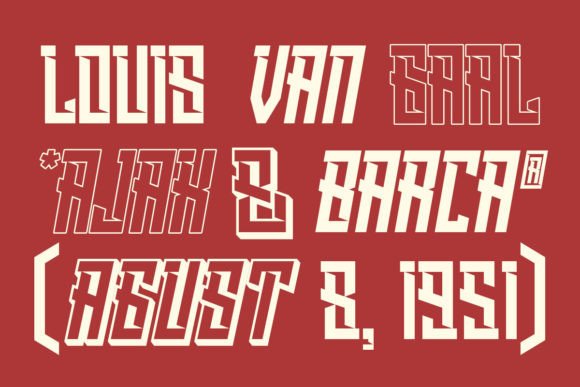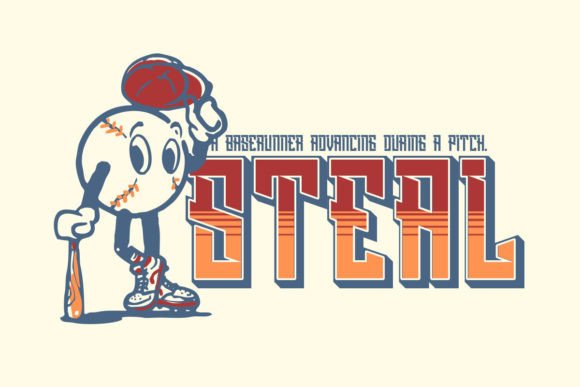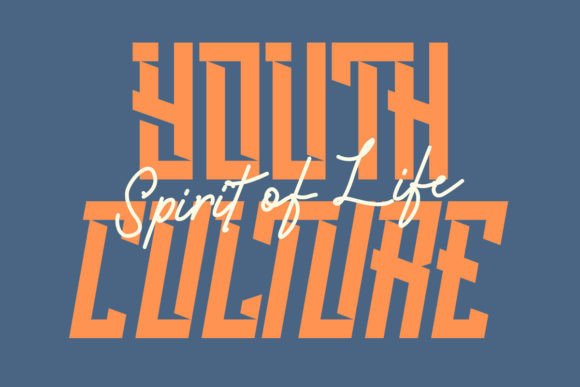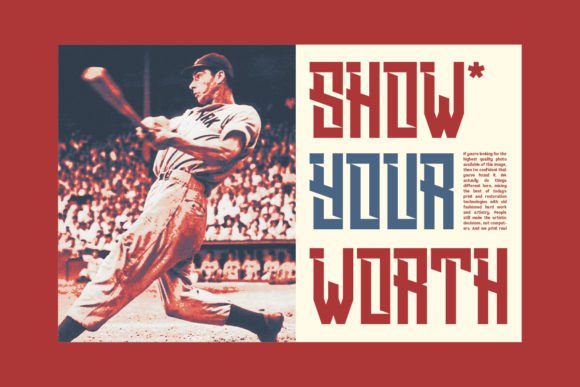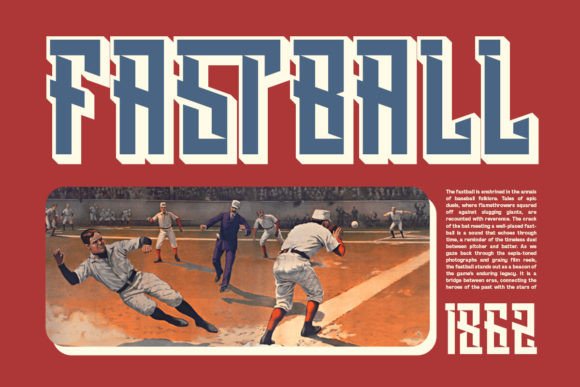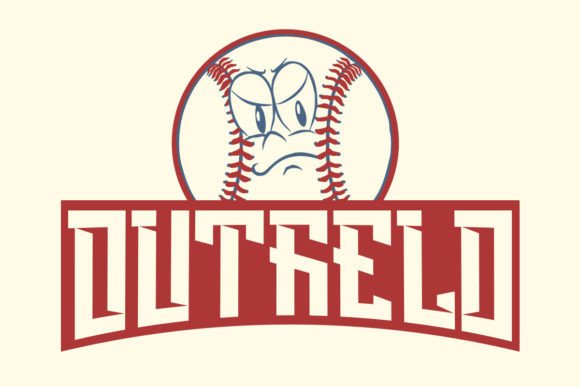
Introducing Blasher: The Ultimate Sporty Display Font for Energetic Designs
Are you looking for a font that can add a dynamic and athletic feel to your designs? Look no further than Blasher, a sporty display font that packs a punch with its condensed slab style. Crafted to invoke the spirit of sports, particularly baseball, Blasher is the perfect choice for designers and crafters who want to create energetic and captivating designs.
A Font that’s Full of Punch
Blasher is more than just a font – it’s an experience. With its strong presence and unique character, this font is designed to capture the essence of athleticism and competitive spirit. Whether you’re working on a sports-themed project or an energetic design, Blasher is the perfect choice to make your designs stand out from the crowd.
One of the best things about Blasher is its versatility. This font comes in 6 different styles: Regular, Italic, Outline, Italic Outline, Extrude, and Italic Extrude. This range of styles provides designers with the flexibility to use Blasher for a wide range of projects, from logos and branding to posters and more.
The Perfect Font for Sports-Themed Designs
Blasher is specifically designed to invoke the spirit of sports, particularly baseball. Its condensed slab style gives it a dynamic and athletic feel that’s perfect for sports-themed designs. Whether you’re creating a logo for a sports team or designing a poster for a marathon, Blasher is the perfect choice to capture the energy and excitement of sports.
Key Features of Blasher
- Condensed slab style: Blasher’s unique font style gives it a dynamic and athletic feel that’s perfect for sports-themed designs.
- 6 different styles: Regular, Italic, Outline, Italic Outline, Extrude, and Italic Extrude provide versatility for a wide range of projects.
- Strong presence: Blasher has a strong presence that makes it perfect for logos, branding, and posters.
- Unique character: Blasher’s unique character captures the essence of athleticism and competitive spirit.
Why Choose Blasher?
So why choose Blasher over other fonts? Here are just a few reasons:
- It’s sporty and energetic: Blasher is the perfect choice for designers who want to create energetic and captivating designs.
- It’s versatile: With 6 different styles, Blasher can be used for a wide range of projects.
- It’s unique: Blasher’s unique character and condensed slab style make it stand out from other fonts.
How to Use Blasher
Blasher is easy to use and can be incorporated into a wide range of designs. Here are a few ideas to get you started:
- Logos and branding: Use Blasher to create a logo or brand identity that’s sporty and energetic.
- Posters and flyers: Blasher is perfect for designing posters and flyers for sports events or energetic designs.
- Social media graphics: Use Blasher to create social media graphics that are dynamic and attention-grabbing.
In conclusion, Blasher is a sporty display font that’s perfect for designers and crafters who want to create energetic and captivating designs. With its condensed slab style, 6 different styles, and strong presence, Blasher is the perfect choice for sports-themed designs or energetic projects. So why wait? Download Blasher today and take your designs to the next level!